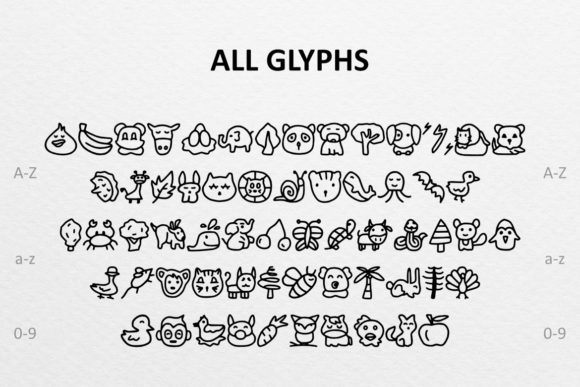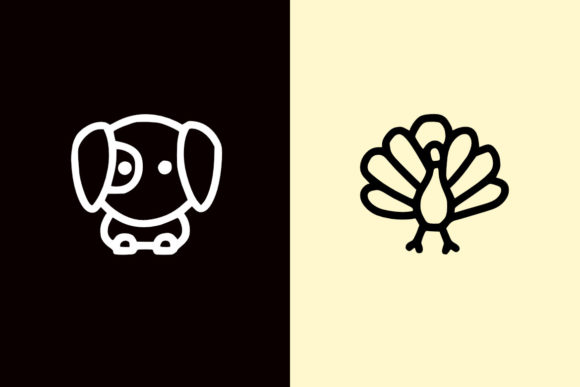
Funnymal Doodle Font
Funnymal Doodle is a delightful and playful dingbats font that brings a dose of cuteness and charm to your designs. Whether you’re working on children’s projects, creating greeting cards, or adding a touch of whimsy to your designs, this font is a fantastic choice.
With Funnymal Doodle, you can easily access a variety of adorable and amusing doodles by typing capital and small letters, as well as numbers. Each character represents a different doodle, ranging from cute animals and friendly monsters to joyful objects and expressive symbols. These charming illustrations can instantly uplift the mood of your designs and bring a sense of fun and playfulness to your projects.
The simplicity of Funnymal Doodle is one of its strengths. The clean and minimalistic style of the doodles allows them to blend seamlessly with various design styles and themes. Whether you’re creating posters, invitations, stickers, or social media graphics, adding elements from this font will instantly make your design more engaging and memorable.
One of the great advantages of using Funnymal Doodle is its versatility. The wide range of doodles gives you the freedom to mix and match to create unique compositions. You can create adorable scenes, patterns, or decorative elements by combining different characters. Let your creativity run wild and explore different combinations to find the perfect arrangement that suits your design needs.
The cute and playful nature of Funnymal Doodle makes it particularly suitable for children’s projects. Whether you’re designing children’s books, nursery decorations, or educational materials, the whimsical doodles will capture the attention and imagination of young audiences. Additionally, these doodles can also add a lighthearted touch to adult-oriented designs, creating a sense of nostalgia or bringing out the inner child in your audience.
When using Funnymal Doodle, remember to pay attention to the scale and arrangement of the doodles. Experiment with different sizes and positions to create visual hierarchy and balance within your design. You can also combine the doodles with typography or other graphic elements to create more dynamic compositions.
In conclusion, Funnymal Doodle is a charming and versatile dingbats font that brings a dose of cuteness and playfulness to your designs. Whether you’re working on children’s projects, creating fun illustrations, or adding whimsical elements to your designs, this font will surely delight and engage your audience. Let Funnymal Doodle add a touch of fun and cheer to your creative projects and watch them come to life with personality and charm.